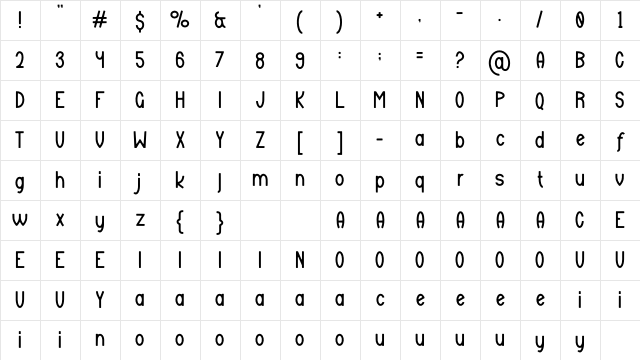
Andak Regular Free Font
Andak Regular
Designer: Maikohatta
Design Context for Andak
Andak is a composed and adaptable typeface that performs quietly and consistently across a wide range of design contexts.